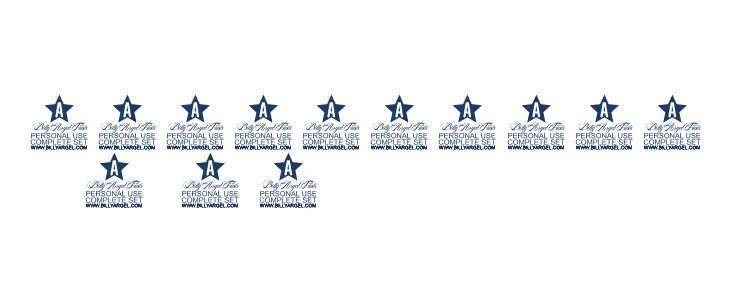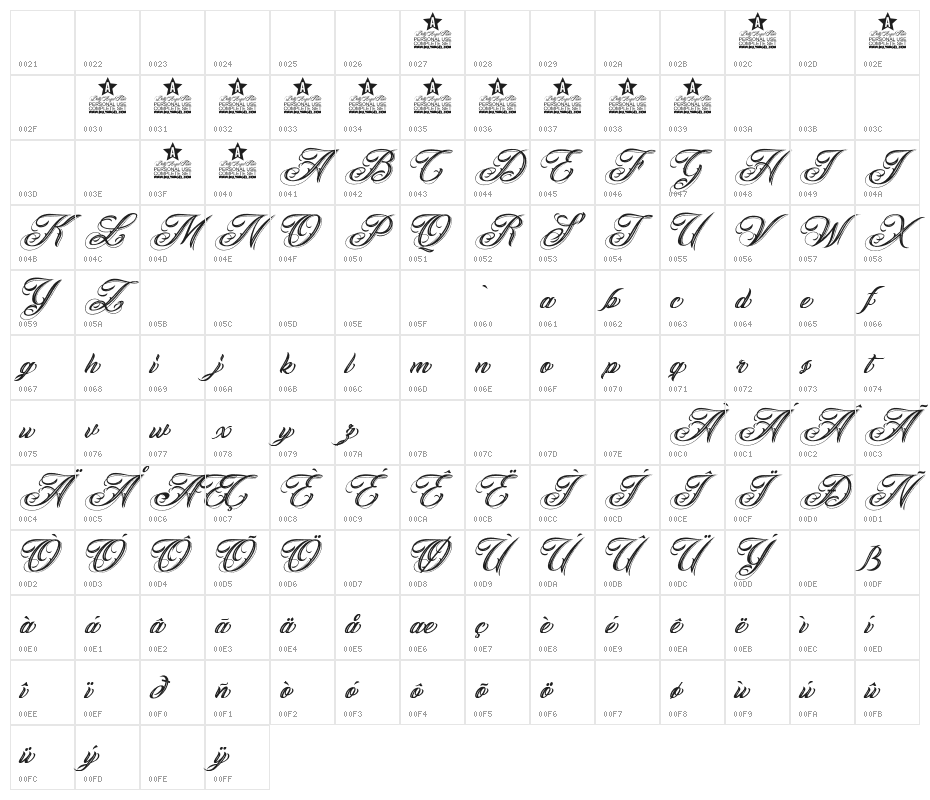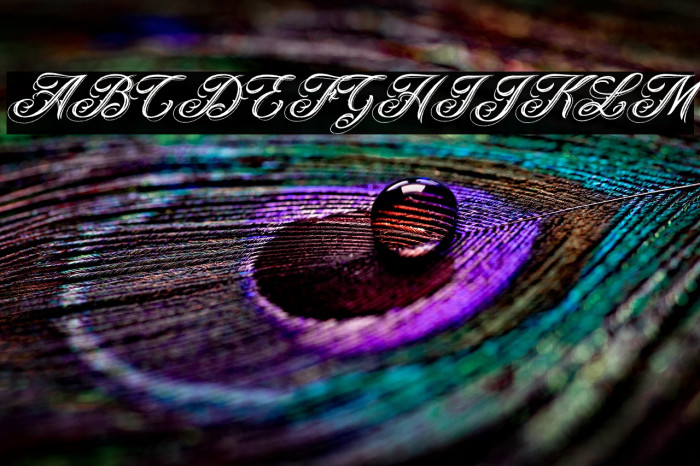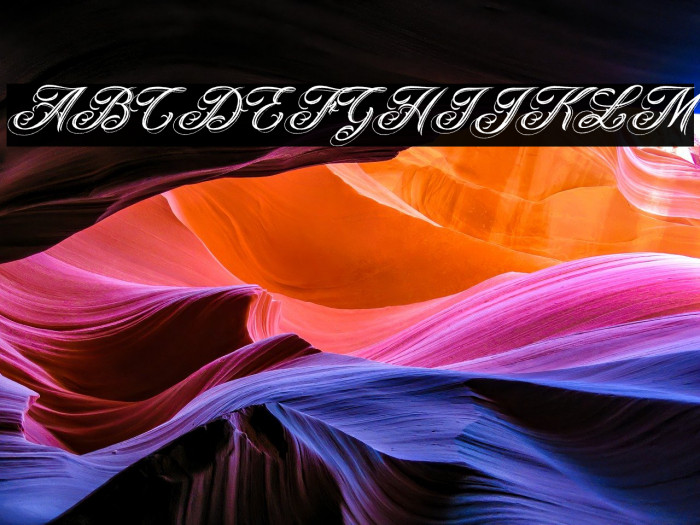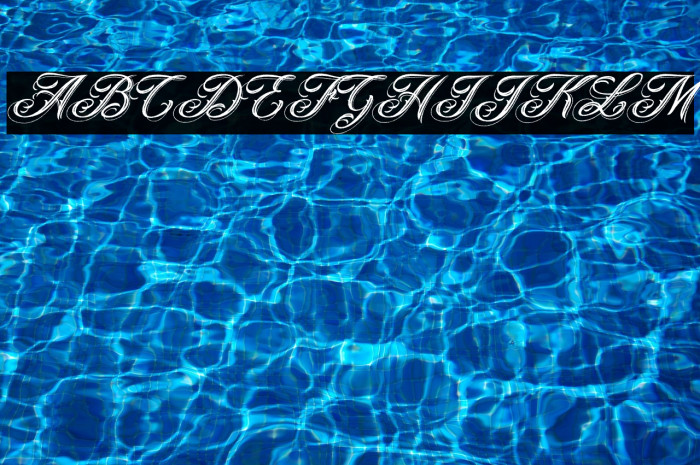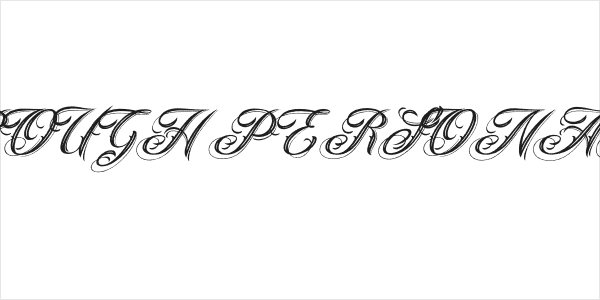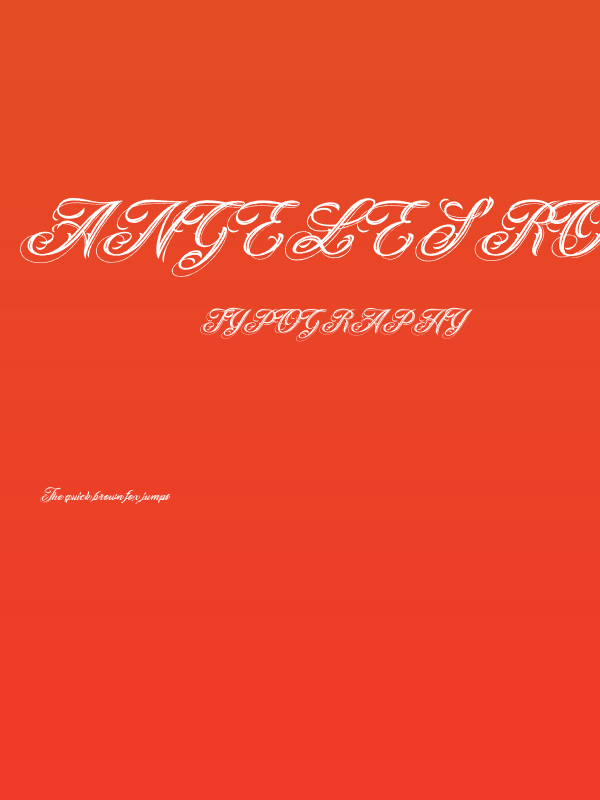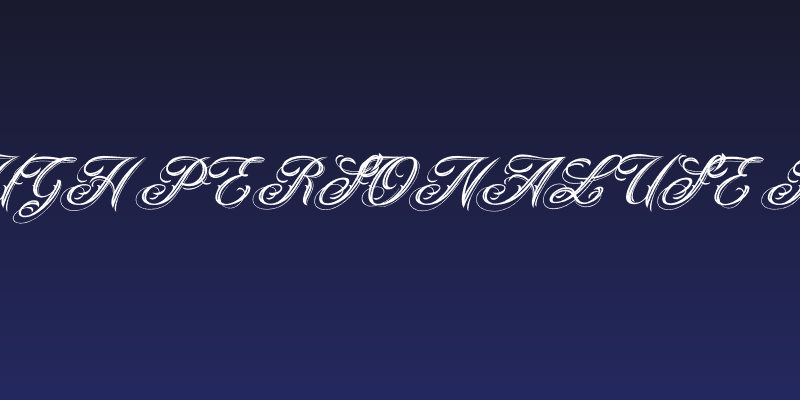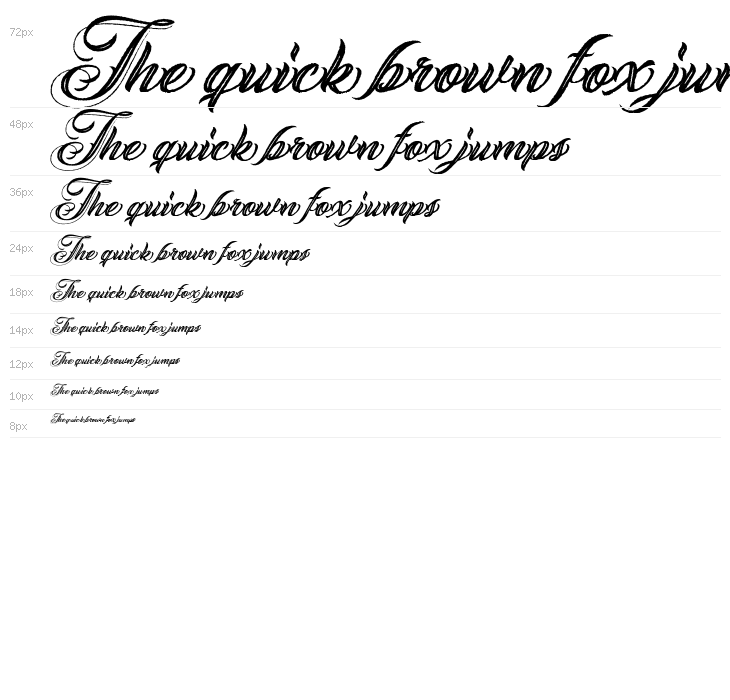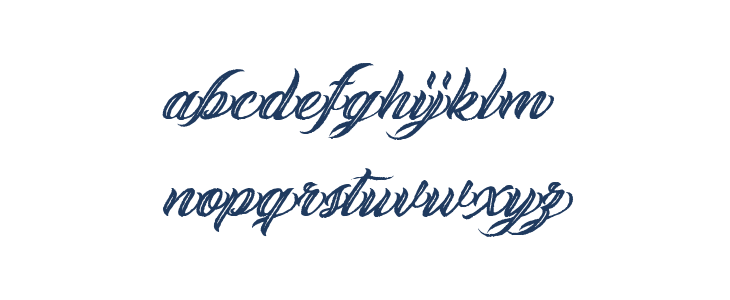
ANGELES ROUGH PERSONAL USE Bold Italic Font
ANGELES ROUGH PERSONAL USE Bold Italic Description
This font features an ornate and decorative style with a bold and italicized appearance. The uppercase letters are intricately designed with flourishes and swashes, giving them a highly stylized and artistic look. The lowercase letters maintain a similar decorative flair, with smooth curves and elegant strokes. The font exudes a sense of sophistication and drama, making it suitable for projects that require a touch of elegance and flair. The characters are well-spaced, allowing for readability despite the elaborate design. This font is ideal for creating eye-catching headlines, logos, or invitations that demand attention.